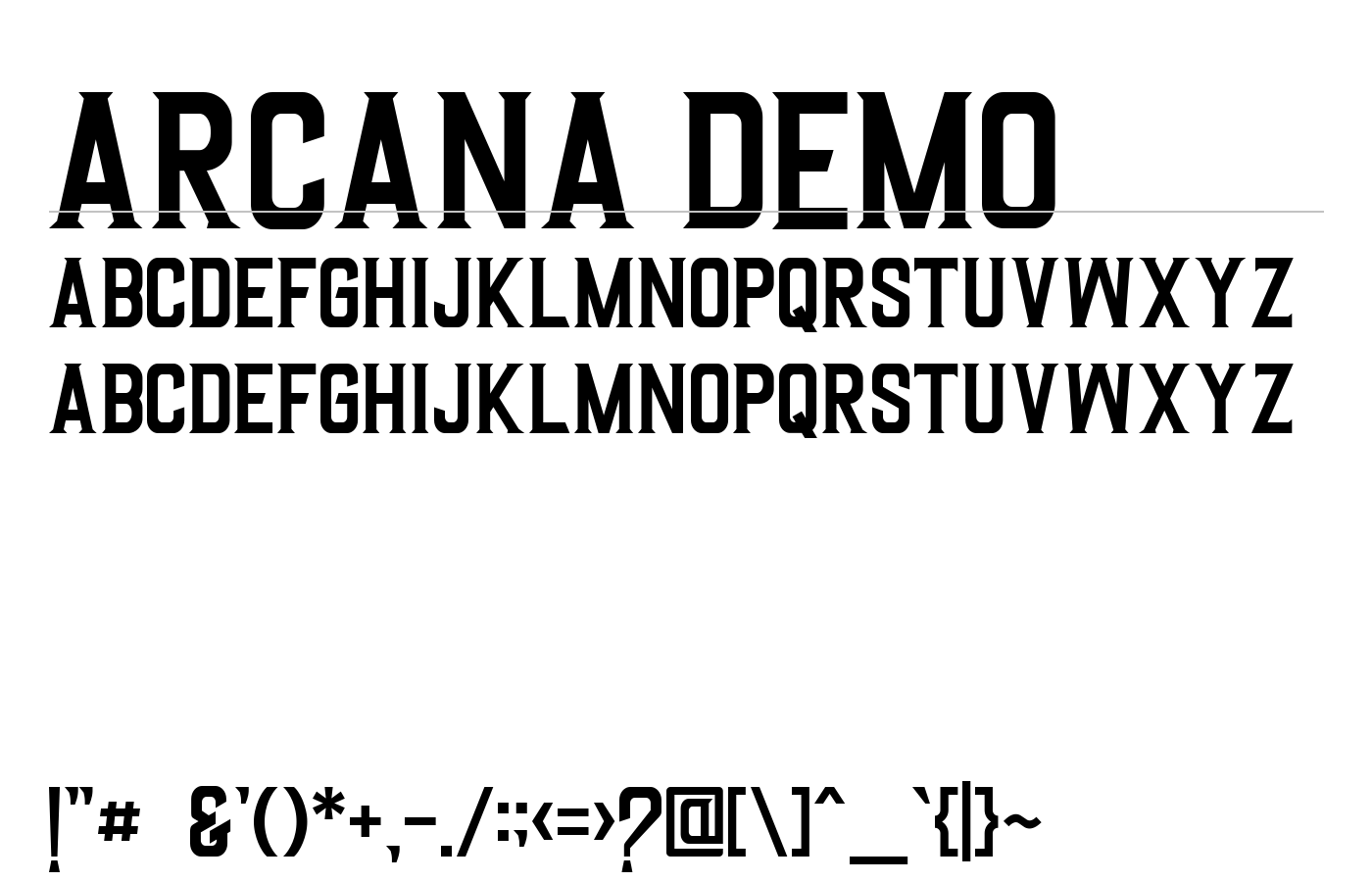
Arcana DEMO is a bold, condensed serif font with strong vertical lines and sharp, bracketed serifs that give it a distinctive, vintage feel. Its high contrast between thick and thin strokes combined with a narrow width makes it ideal for impactful headlines and branding that demand attention. This font works well for editorial titles, posters, and luxury or heritage branding where a classic yet commanding presence is desired.
Arcana DEMO Font
About Arcana DEMO Font
| Font family | Arcana DEMO Font |
| Designer | Vilogsign |